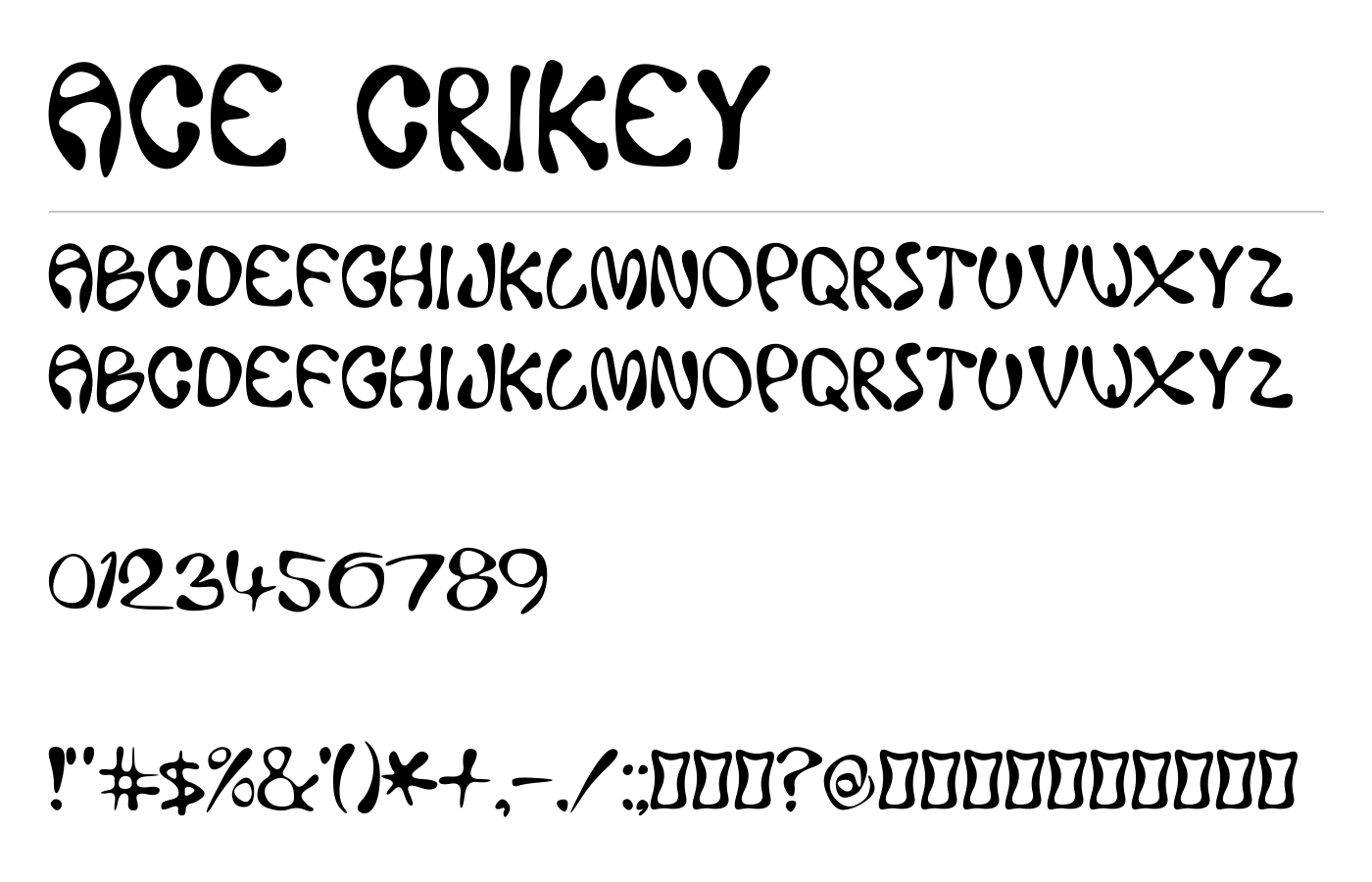
Ace Crikey is a playful, decorative sans serif font with a lively, organic feel created by its irregular, rounded shapes and casual stroke endings. Its quirky letterforms and friendly personality make it perfect for fun, informal designs like children’s books, posters, and playful branding, adding a cheerful and approachable vibe. This font captures attention with its unique style while remaining readable in display use.
Ace Crikey Font
About Ace Crikey Font
| Font family | Ace Crikey Font |
| Designer | James Shields |